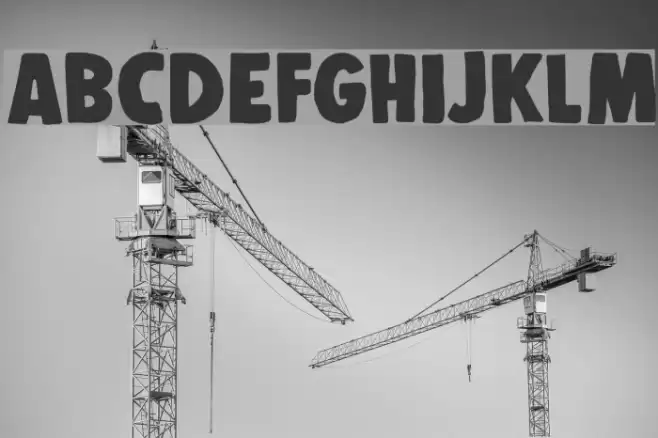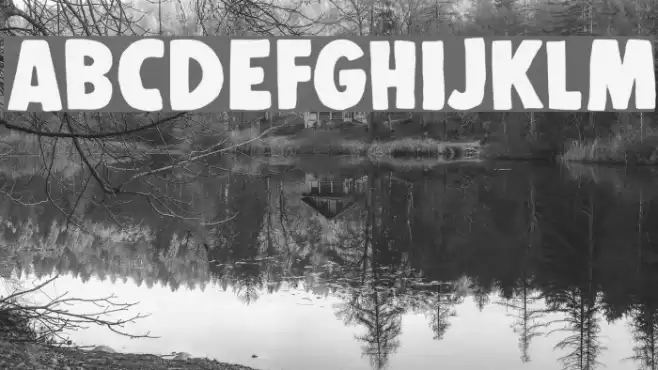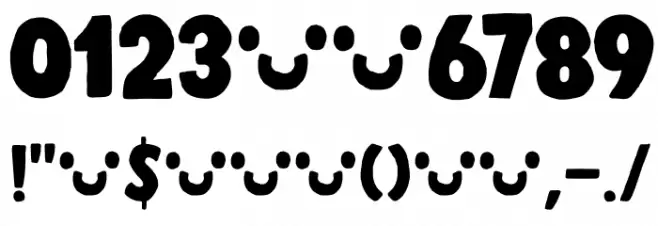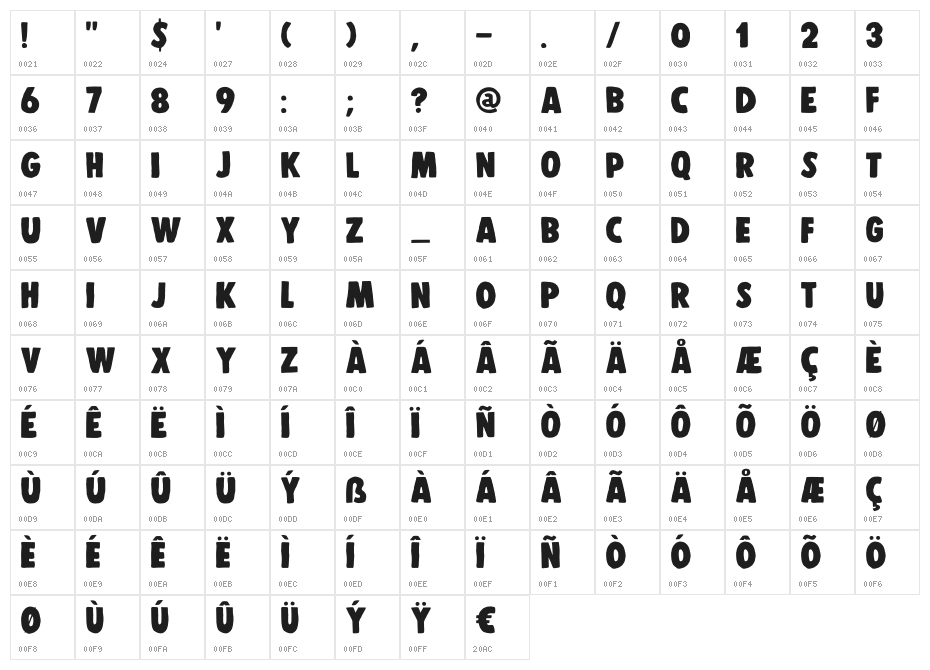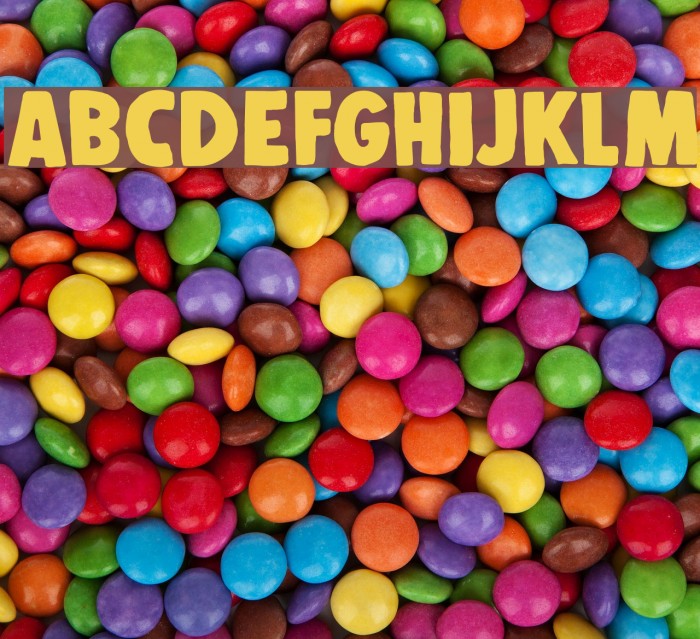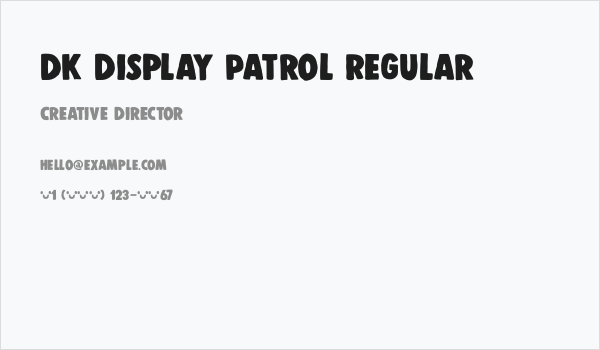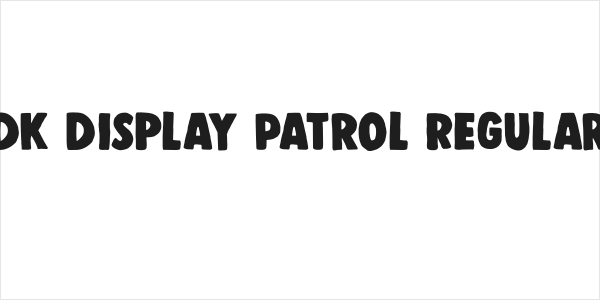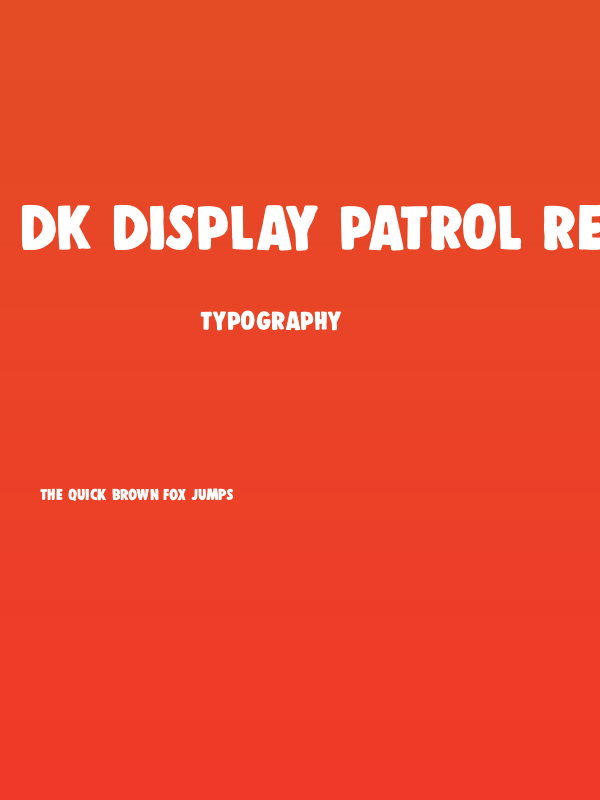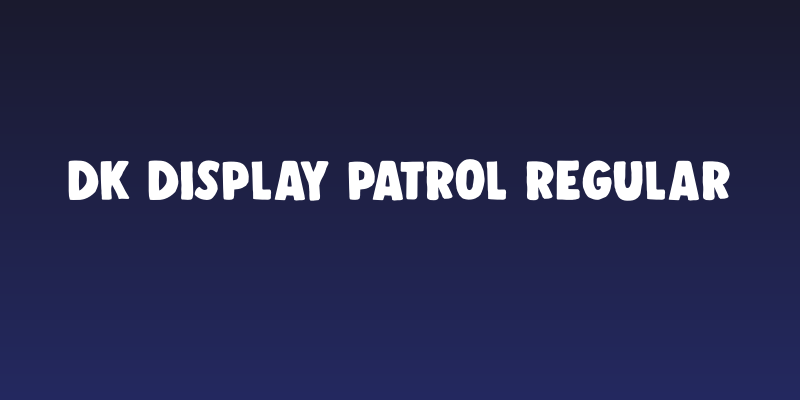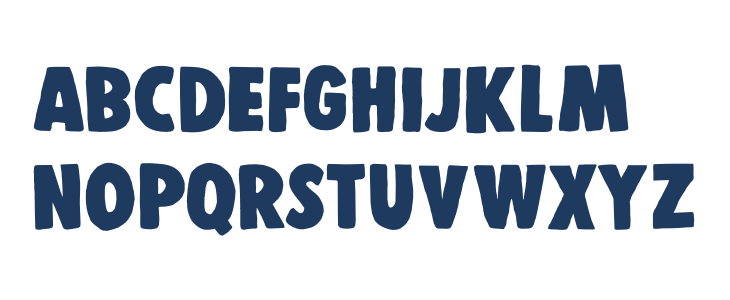
DK Display Patrol Regular Font
DK Display Patrol Regular Description
This font features bold, rounded characters with a playful and slightly retro aesthetic. The letters are thick and have a uniform stroke width, giving them a strong presence on the page. The rounded edges and slightly irregular shapes add a whimsical touch, making it ideal for creative and informal designs. The numerals and special characters maintain the same playful style, ensuring consistency across all text elements. This font is particularly well-suited for projects that require a fun and engaging visual impact.
A bold, rounded font with a playful, retro style from Uncategorized fonts.
- Proposed Projects: Ideal for children's books, playful branding, posters, and creative advertising.
- Overall Style: Playful, Retro